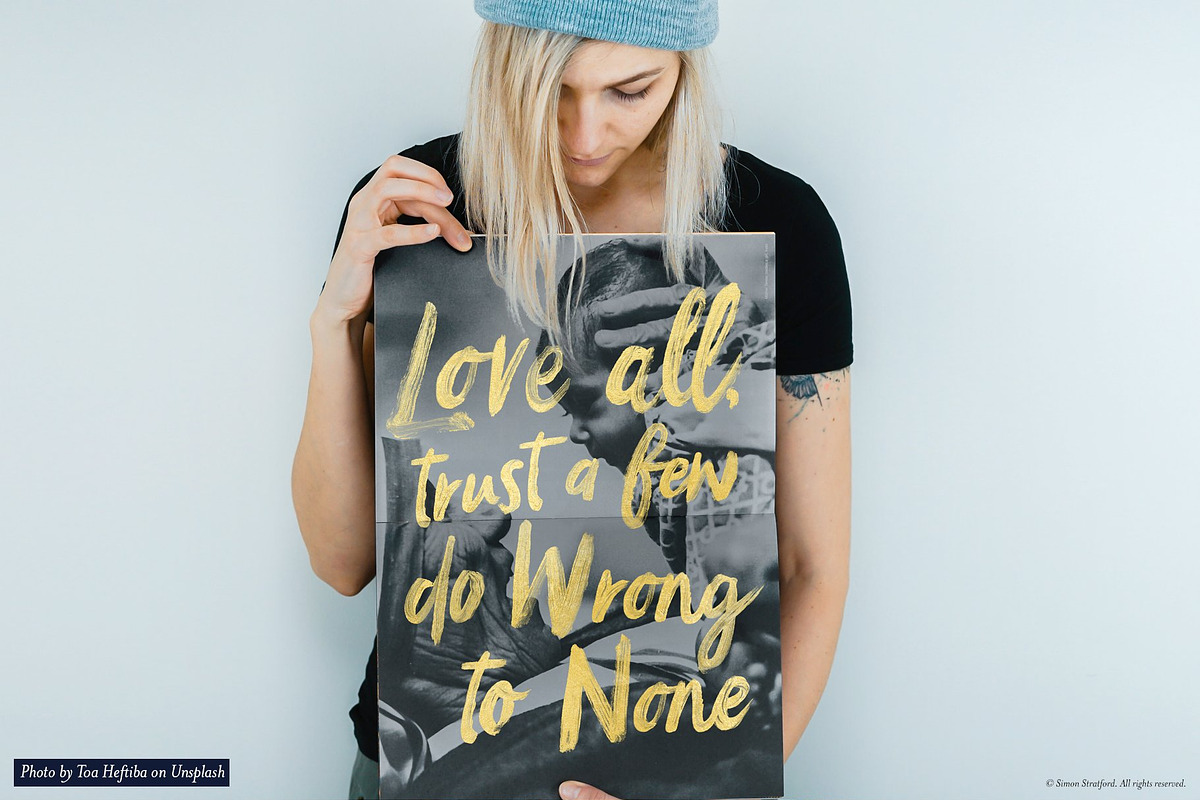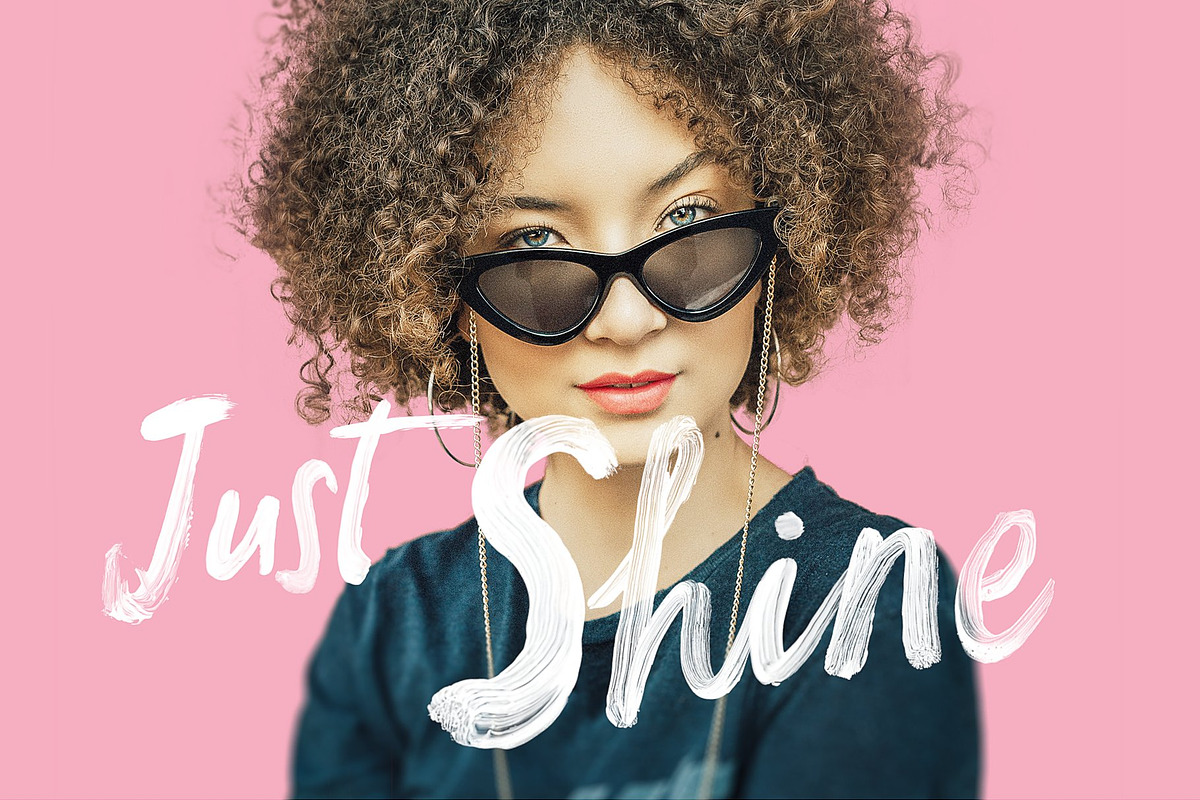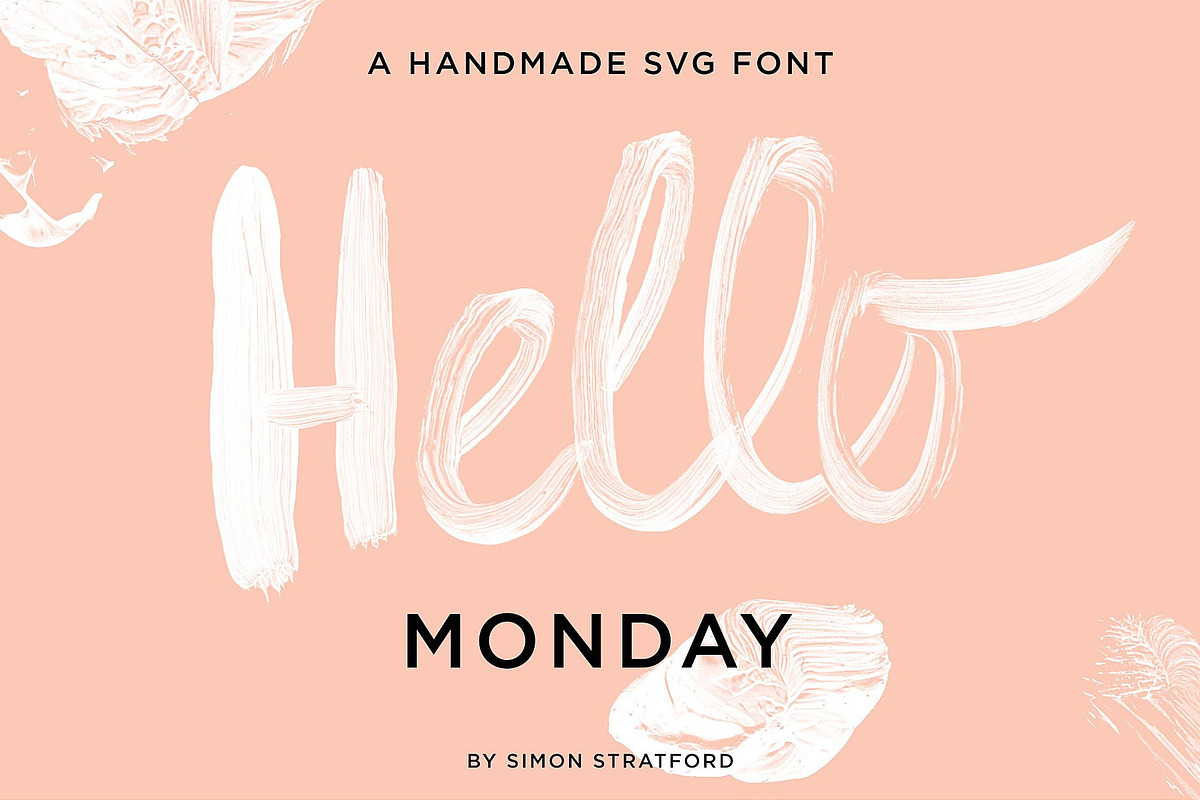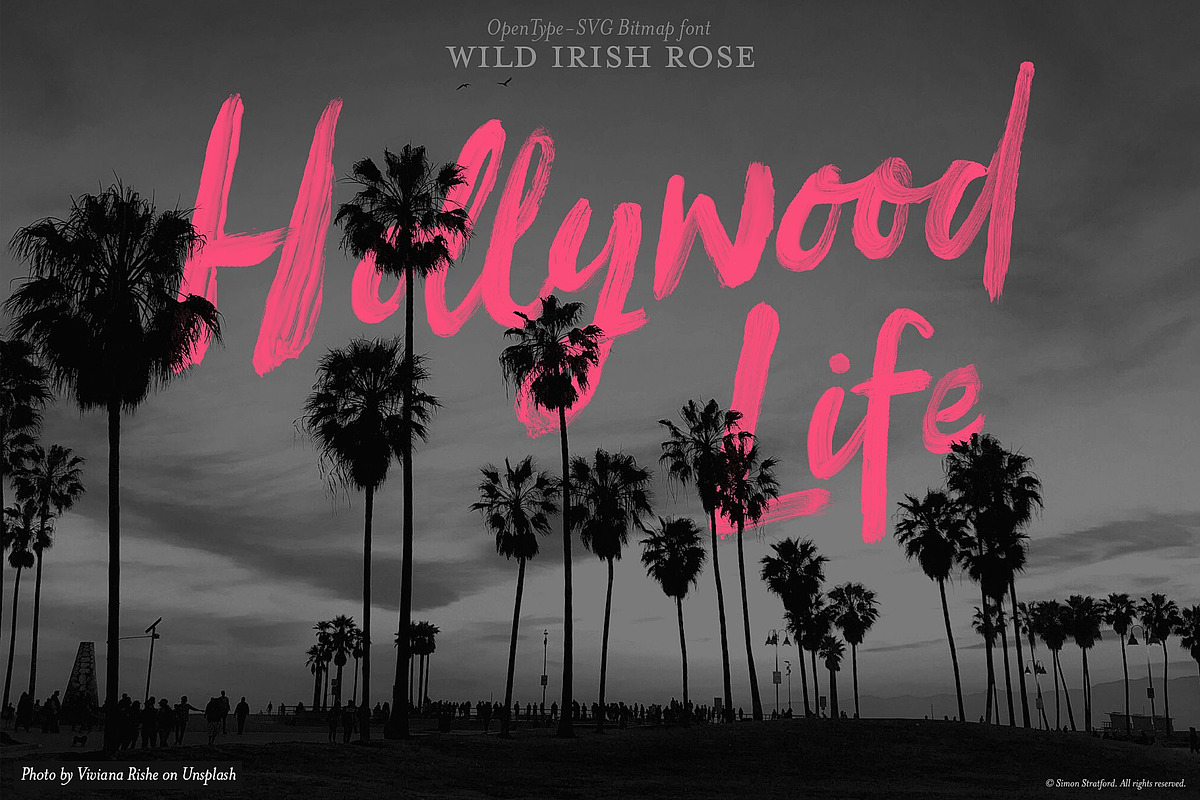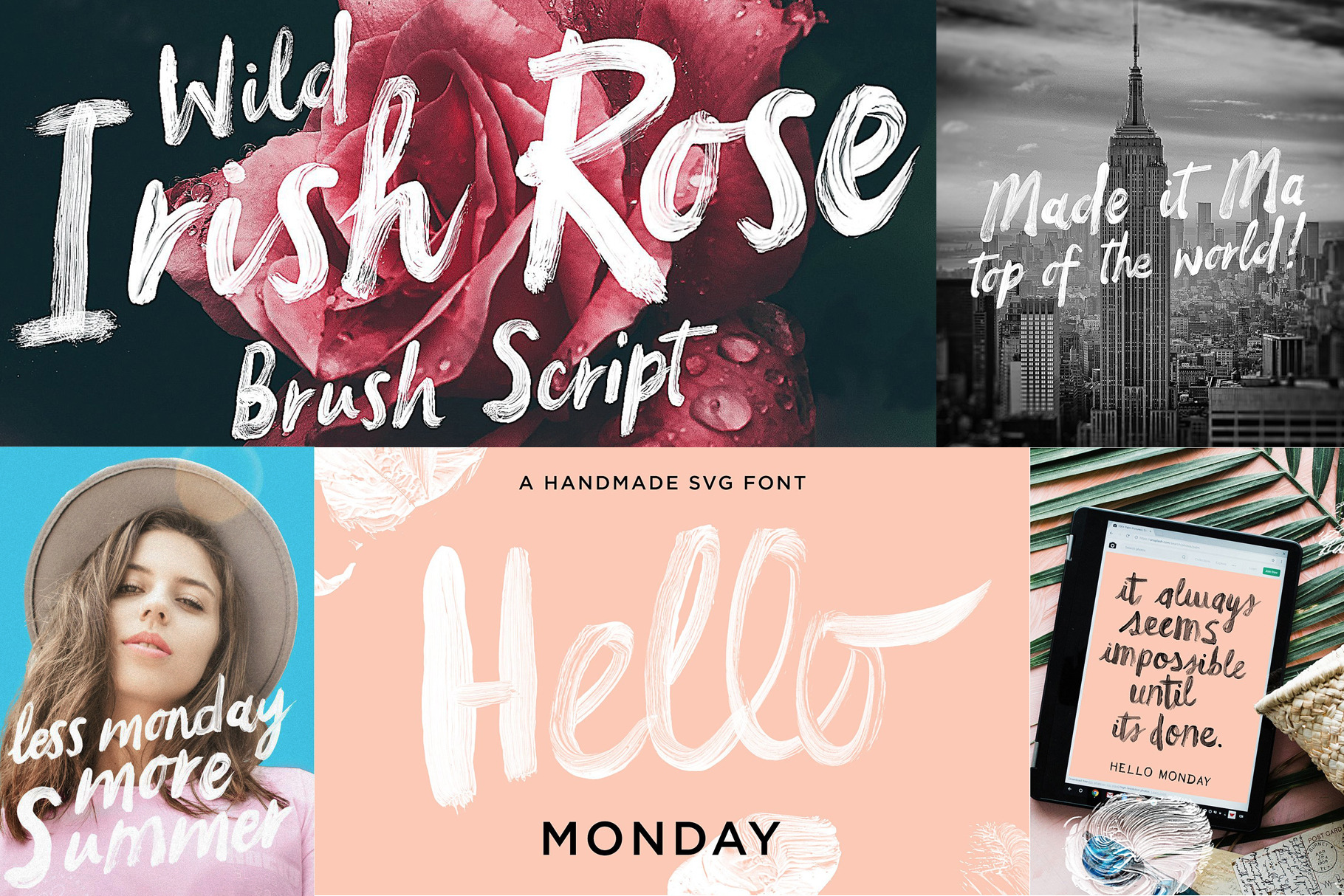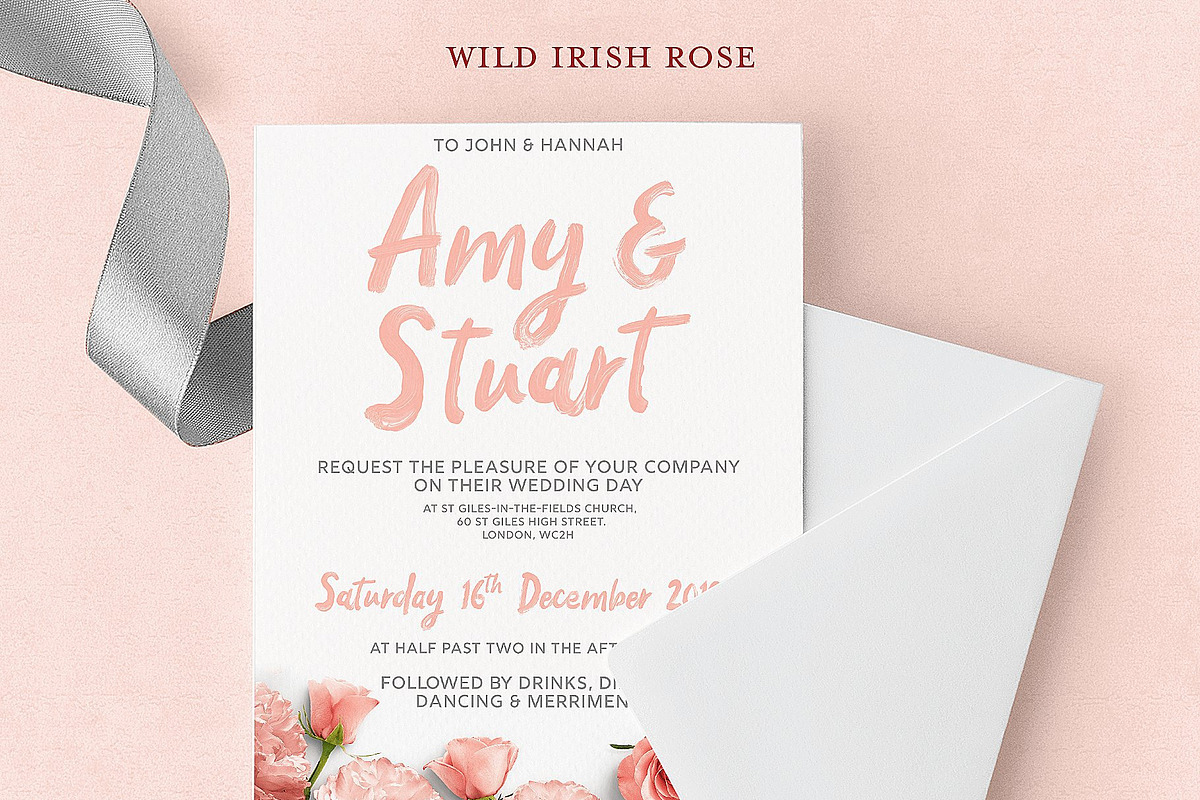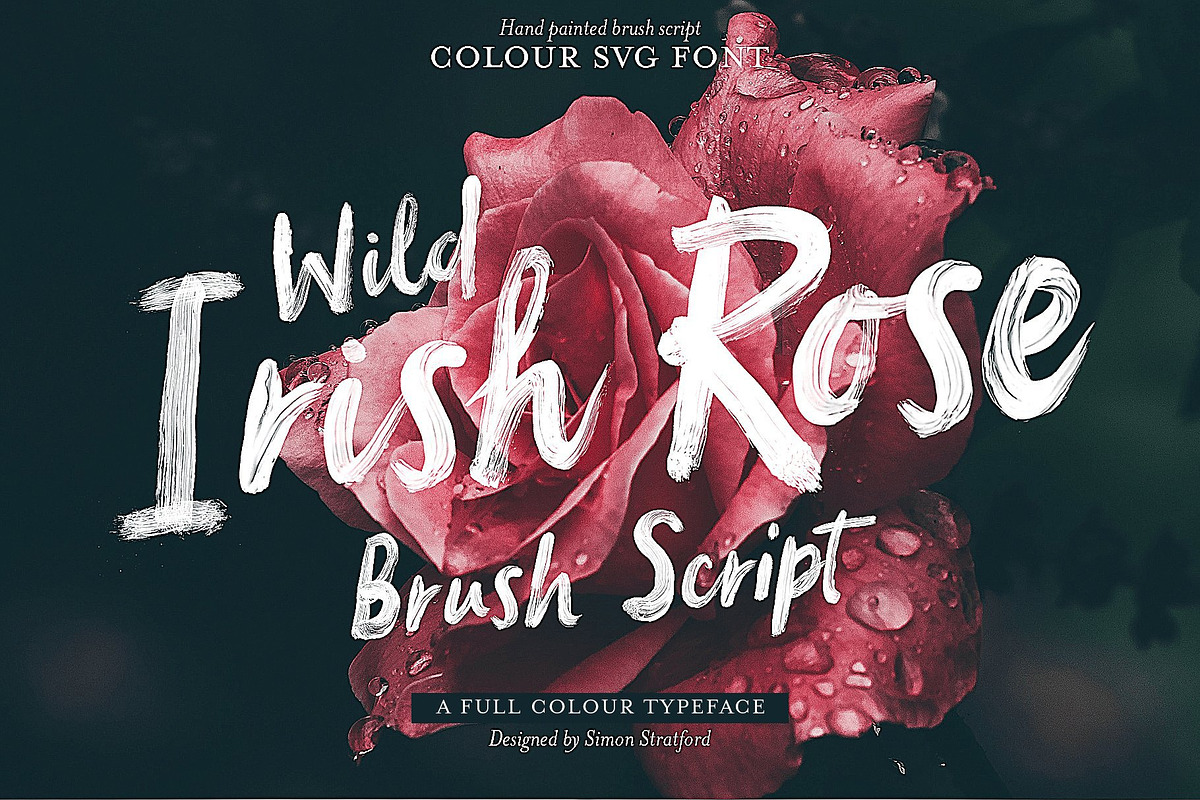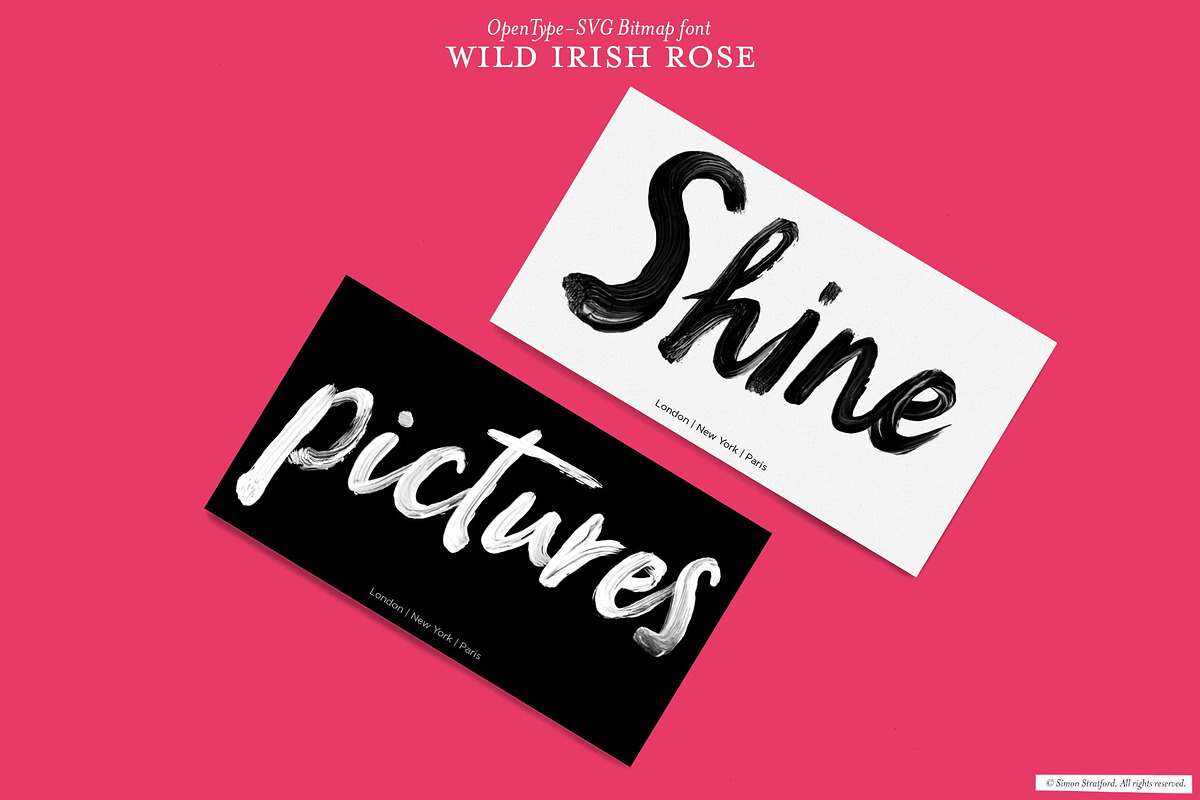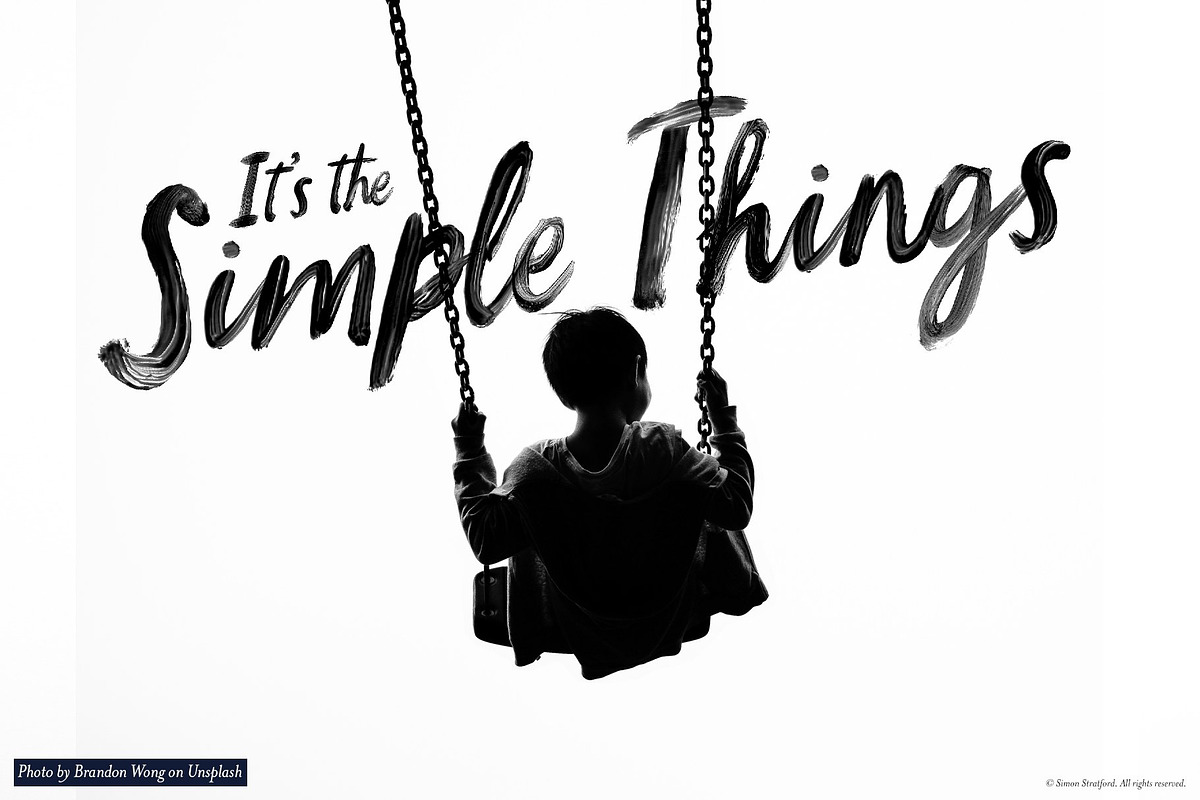
Script font bundle
Wild Irish Rose script font
Wild Irish Rose brush script, intentionally painted very quickly without overthinking too much.
By hand-painting it quickly it retains its energy so that it looks fresh as a daisy—allowing you to create beautiful handmade brush lettering.
Every letter has been hand-painted with acrylic paint one because I get a kick out of making a mess and two it's when the magic happens.
Hello Monday script font
Hello Monday is a handmade brush script font. It has a rough handwriting style with expressive brush marks. It has an energy about it and a kind of urban street style that if used sparingly is hard to ignore.
Hand-lettered
Every brush mark has been hand-painted with acrylic paint and painstakingly converted to a typeface.
- Would this be a good wedding font?
- Yes perfect for wedding invites if you want that unique look and feel.